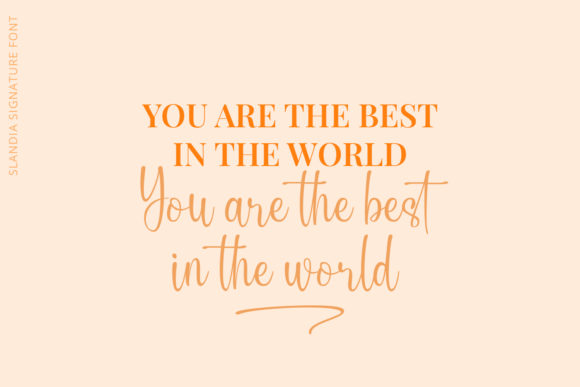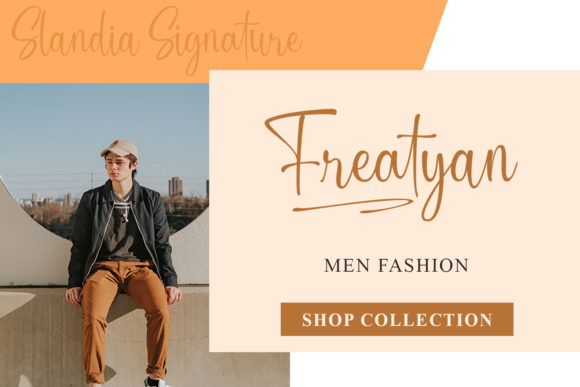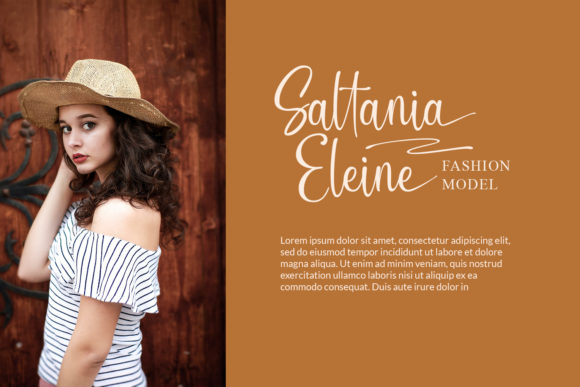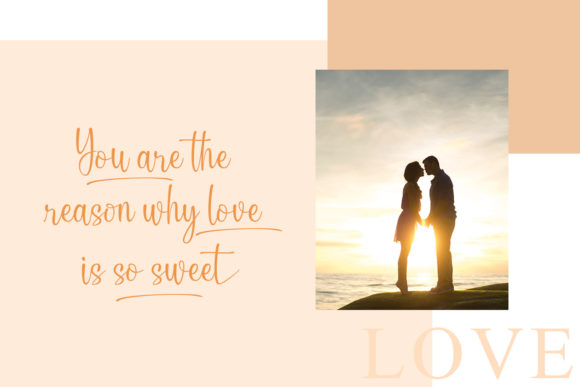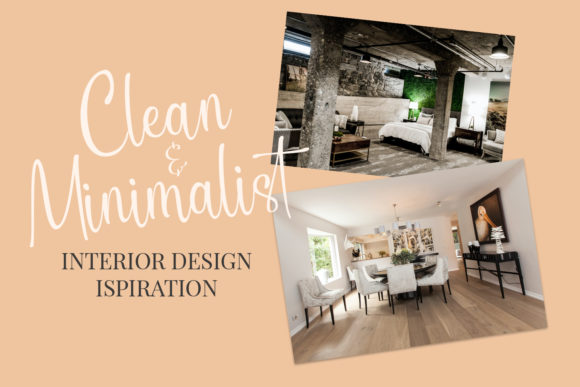
Introduction to Slandia Signature Font Font
Fonts play a crucial role in design, and the Slandia Signature Font font is a typeface that brings both character and versatility to any project. Whether you’re working on a branding project, a website, or a print design, the Slandia Signature Font font offers a unique style that can elevate your work.
Slandia Signature is a lovely and timeless handwritten font.
It is the best choice for creating eye catching logos, branding and quotes Every letter has a unique and beautiful touch, which will make your design come alive.
Key Features of Slandia Signature Font Font
Why Choose Slandia Signature Font Font?
The Slandia Signature Font font is more than just a typeface – it’s a design tool that helps you communicate your message with style and clarity. Its unique character set and versatile design make it suitable for a wide range of applications, from elegant invitations to bold headlines.
With its carefully crafted letterforms and balanced proportions, the Slandia Signature Font font ensures readability and visual appeal across all mediums.
What makes Slandia Signature Font font special?
The Slandia Signature Font font stands out with its unique design, exceptional readability, and versatility across various design applications.